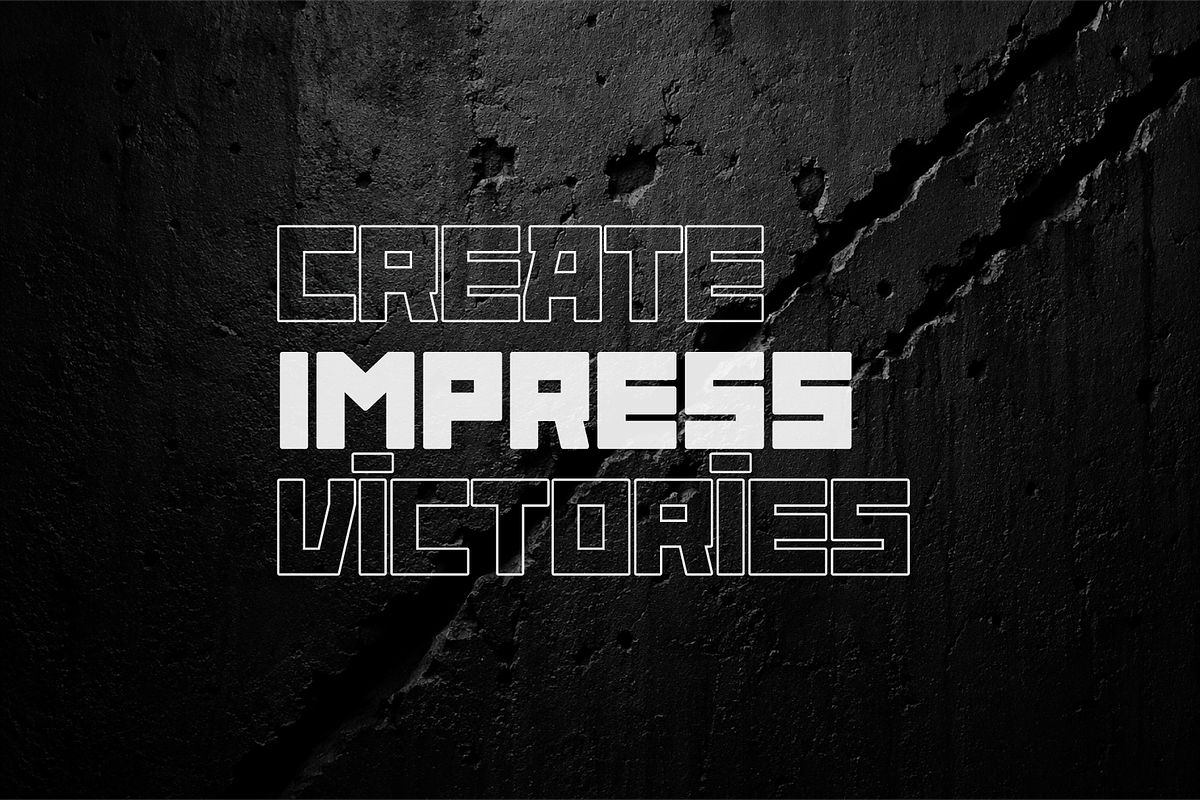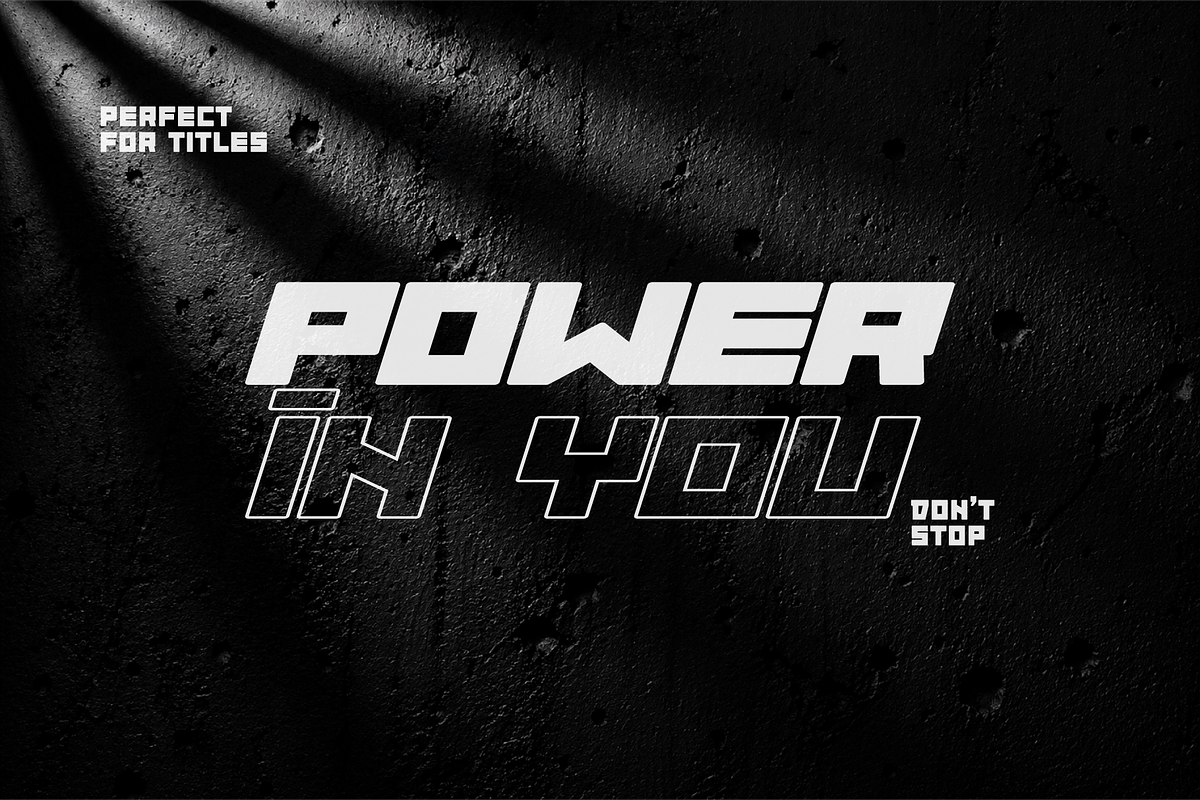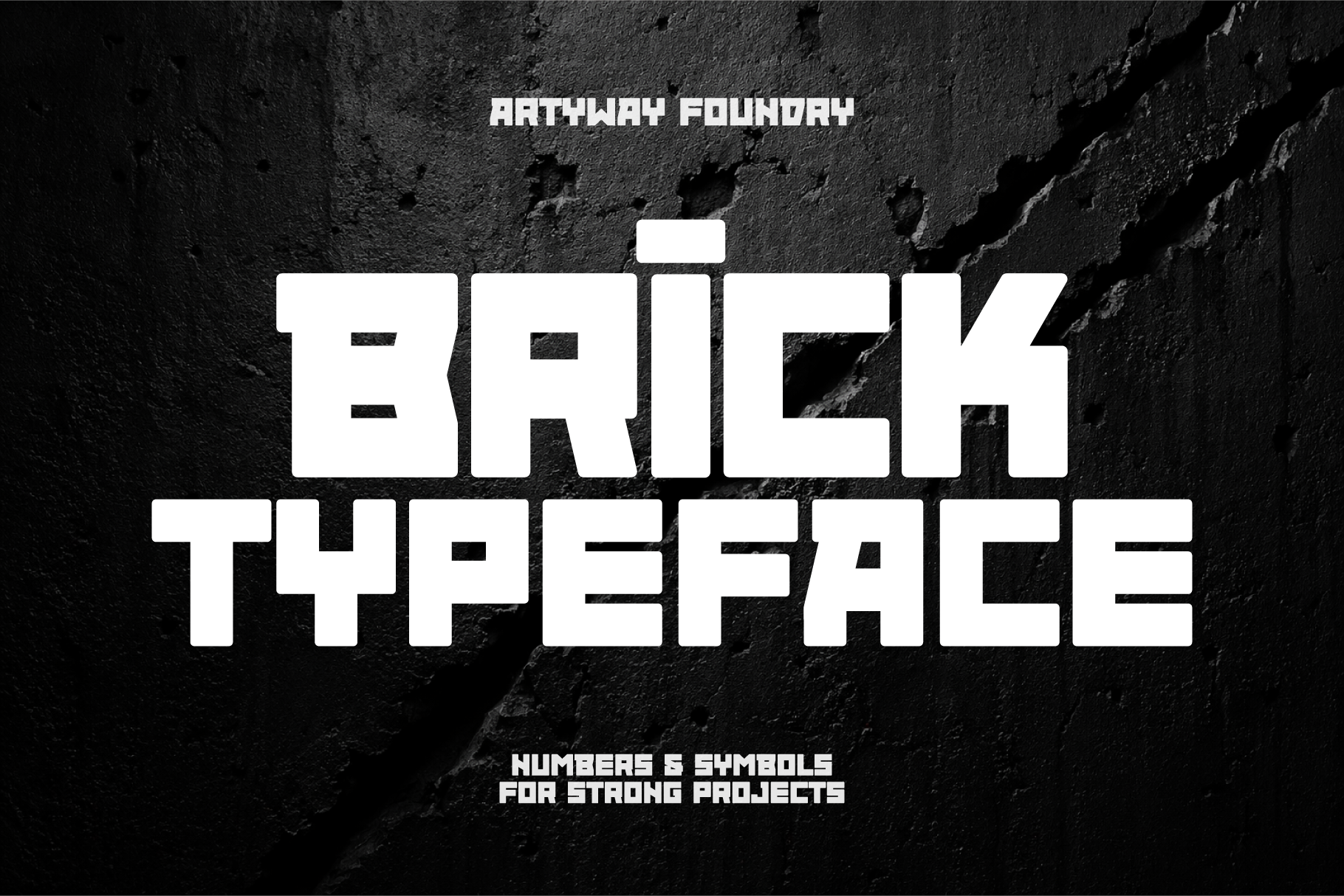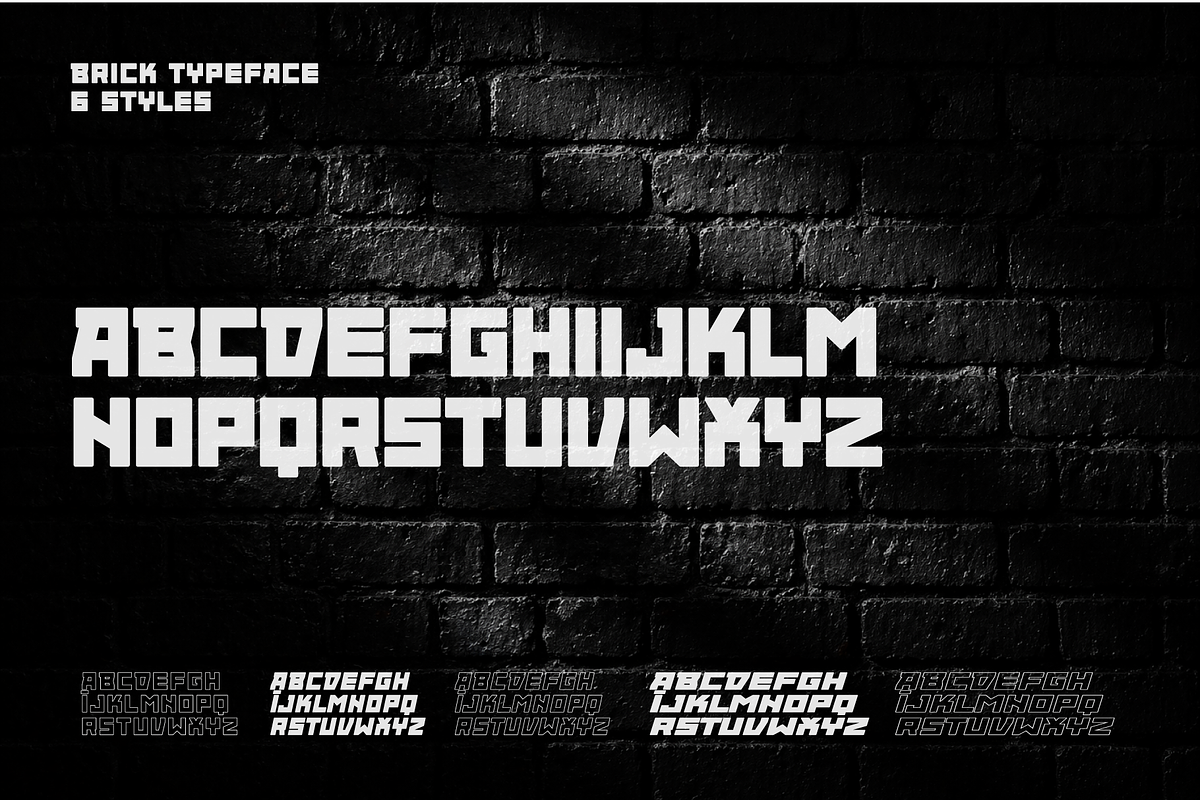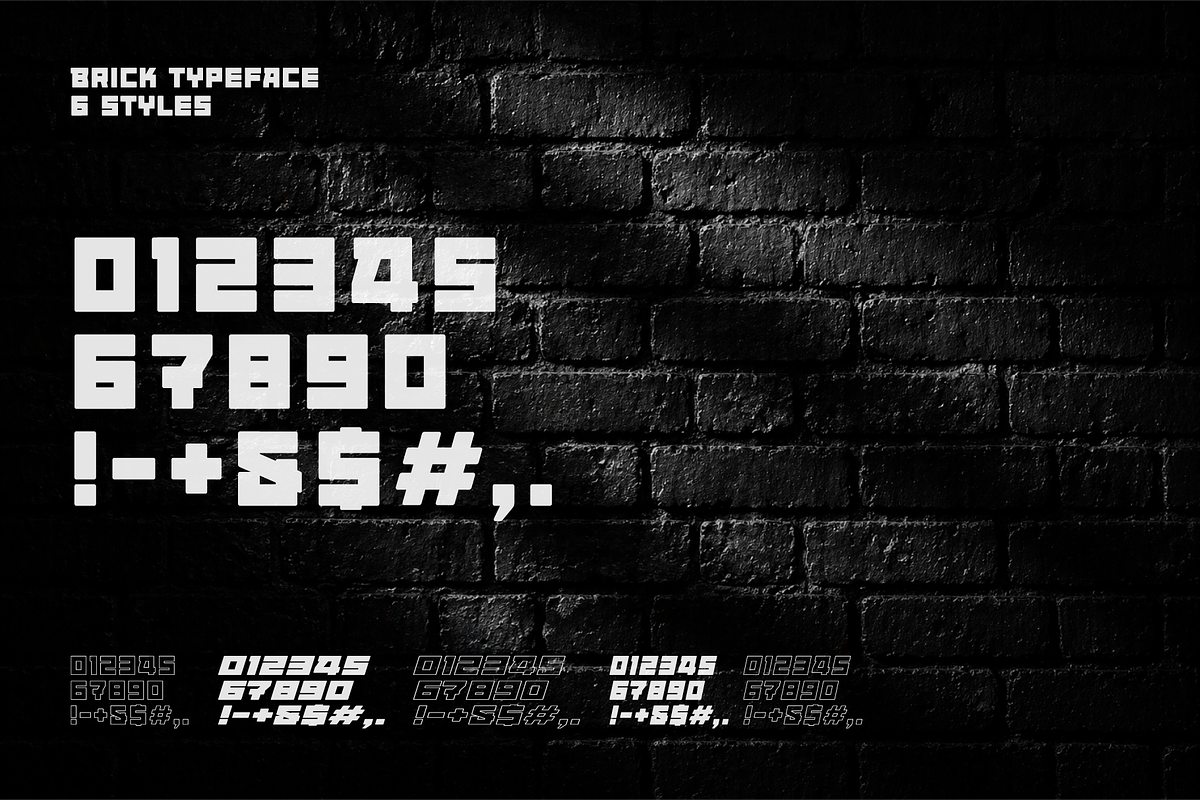
New Brick Font
Brick is a bold industrial display typeface with a strong geometric structure and a tough, uncompromising character. Built from sharp modular forms and heavy block proportions, it delivers a raw, powerful look that feels solid, urban, and attention-grabbing. Perfect for designs that need impact, weight, and a confident visual voice.
6 styles: Regular, Italic, Outline, Outline Italic, Wide, Wide Outline
Uppercase Latin set
Numbers, symbols, and punctuation
Strong display forms for impactful compositions